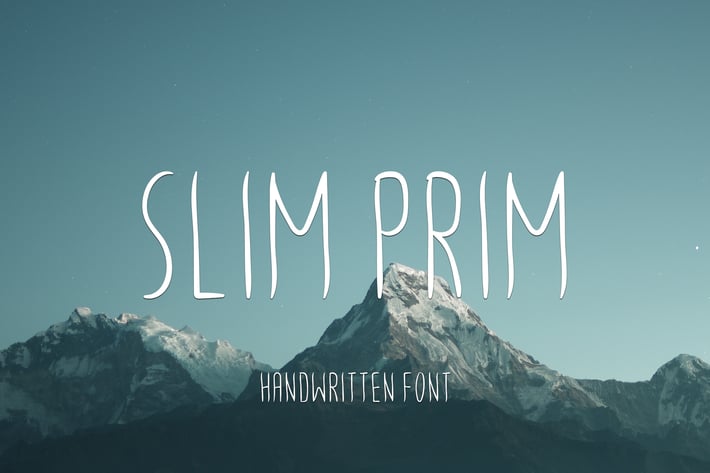
Slim Prim Font
Slim Prim
Slim Prim is handwritten sans-serif tall font (all caps) perfect for quotes, blog header, poster, branding, logo, banners, etc.